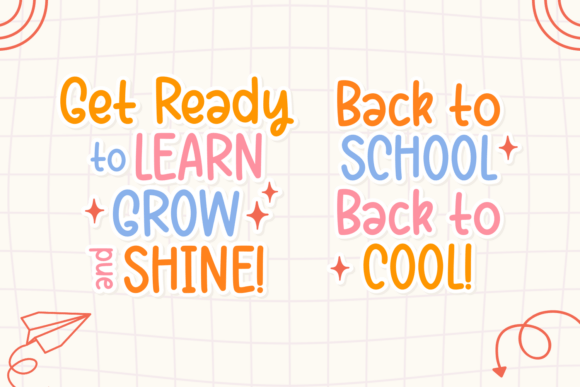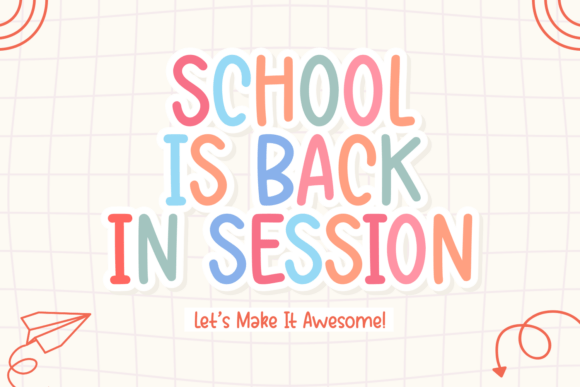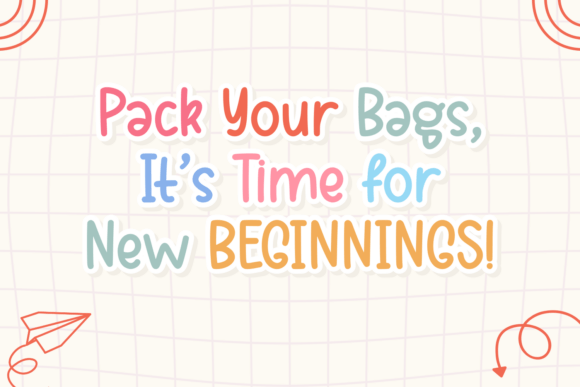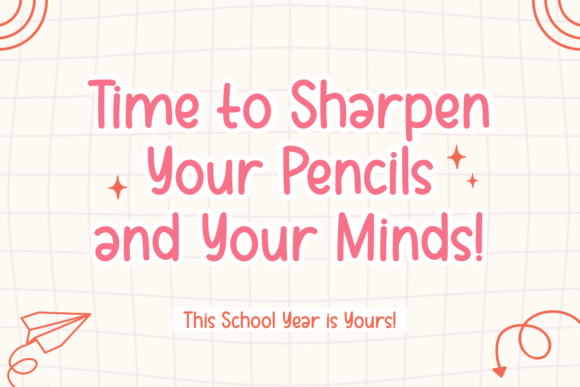
Get Ready to Spark Your Designs with Bright Teacher Font
Do you remember the excitement of heading back to school, surrounded by new pencils, colorful textbooks, and the thrill of learning something new? For designers, that same sense of wonder and creativity can be rekindled with the right font. Enter Bright Teacher Font, a delightful monoline font that embodies the joy of learning and the vibrancy of the back-to-school season.
This charming font is more than just a pretty face – it’s a versatile tool that can add an inviting spark to a wide range of designs, from book covers and posters to packaging and merchandise. With its playful aesthetic and sense of whimsy, Bright Teacher Font is the perfect choice for designers looking to add a cheerful undertone to their work. Whether you’re a seasoned pro or just starting out, this font is sure to inspire your creativity and help you create designs that truly shine.
Bright Teacher Font Key Features
- Font Family: Bright Teacher Font is a unique, educational font designed specifically for teaching and learning materials.
- Unique Characteristics: Bright Teacher Font features a bold, playful design with rounded edges and a friendly tone, making it perfect for educational materials, children’s books, and teaching resources.
- Character Set: The font includes a wide range of characters, including uppercase and lowercase letters, numbers, punctuation marks, and special characters, ensuring that users have all the necessary symbols to create engaging educational content.
Bright Teacher Font Review
Overall, I’m quite impressed with the Bright Teacher Font. It’s a modern and clean sans-serif font that’s perfect for educational materials and websites. ✨ The font is highly legible, making it ideal for reading large amounts of text.
- Legibility**: As I mentioned earlier, the font is very easy to read, even at smaller font sizes.
- Professional look**: The font has a clean and modern design that gives a professional look to any educational material or website.
- Highly customizable**: The font is highly customizable, allowing you to adjust the weight, width, and other attributes to suit your needs.
However, there are some limitations to the font:
- Limited font weights**: While the font is highly customizable, it only comes in a limited range of font weights, which may not be suitable for all designs.
- Lack of ligatures**: The font does not include ligatures, which can make it difficult to read certain combinations of letters.
Overall, I would highly recommend the Bright Teacher Font for educational materials and websites. While it has some limitations, its clean design and high legibility make it a great choice for a wide range of applications.
Tips for Getting the Most Out of Bright Teacher Font
Use Bright Teacher Font to create engaging and visually appealing content, such as:
- Lesson plans and educational materials
- Presentations and slideshows
- Blog posts and articles
Experiment with different font sizes, colors, and styles to create a unique look and feel.
Bright Teacher Font is ideal for:
- Education and learning materials
- Marketing and advertising materials
- Business and corporate communications
Alternatives to Bright Teacher Font for Designers
Open Sans is a modern sans-serif font that is highly legible and versatile. It is ideal for body text, headings, and titles. Open Sans is a popular choice for digital products and can be used in a variety of contexts, from web design to print materials.
Compared to Bright Teacher Font, Open Sans is more modern and sleek, while Bright Teacher Font has a more traditional and educational feel. Open Sans is also more versatile and can be used in a wider range of applications.